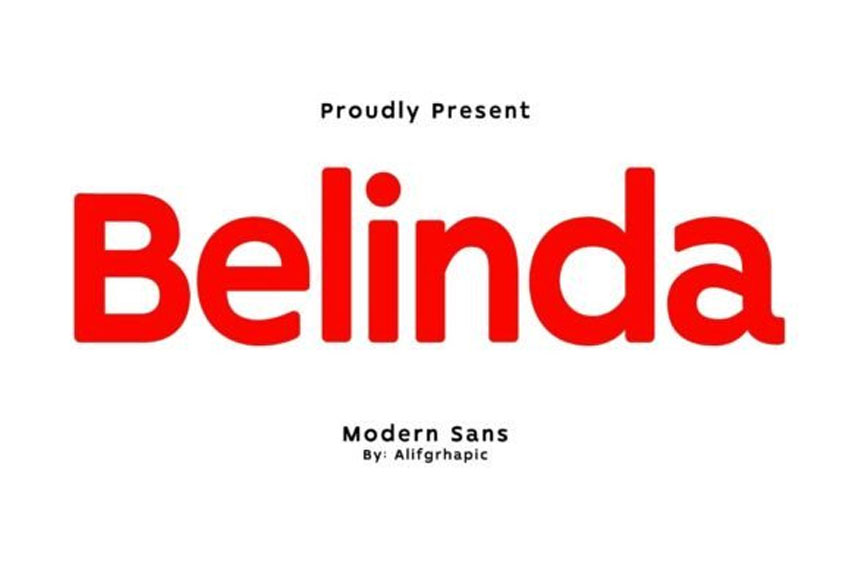
Belinda Sans Font is a modern sans-serif font that effortlessly combines sleek simplicity with timeless elegance. With clean lines and a contemporary feel, Belinda is perfect for conveying a sense of modern sophistication in your designs.
Whether you’re working on branding, editorial projects, or digital applications, Belinda’s versatility and clarity make it an ideal choice. Elevate your typography with the minimalist charm of Belinda for a fresh and polished look in any context.